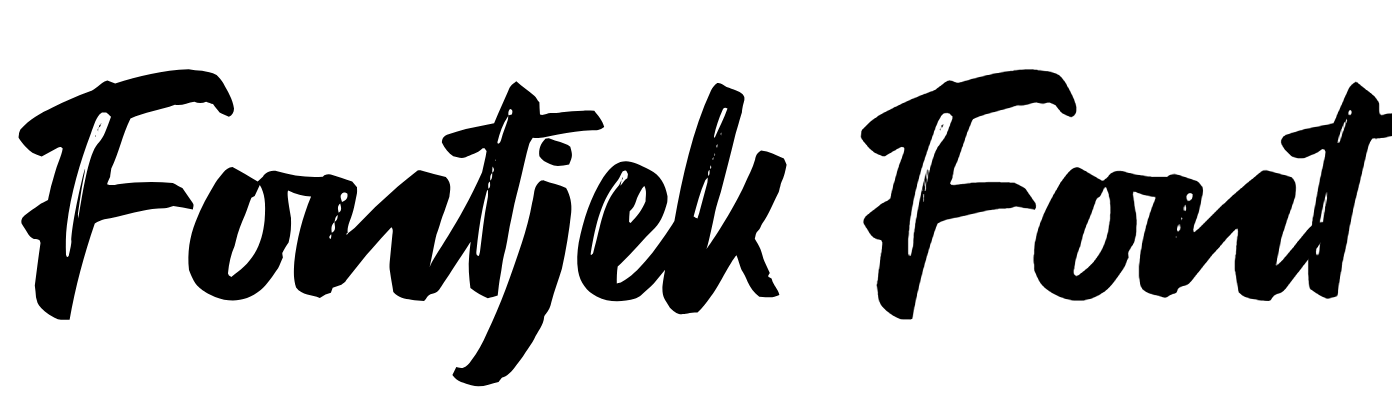
Fontjek
Fontjek is a script font created by Khurasan (2019). The letters have the smooth movement of real pen lettering, which is why even a single name looks special in it. You can download it for free and test it with your own words in the preview above.
- Extra characters: 11 copy-and-paste alternates (Private Use Area)
You get every letter from A to Z in both cases and all the numbers from 0 to 9, which means Fontjek can handle full sentences, dates and prices. Common punctuation such as &, !, ? and @ is included as well. It also has the accented letters you need for Spanish, French, Portuguese and Italian.
Designers usually reach for fonts like Fontjek when they're making wedding invitations, logos and signature-style headings. Script fonts read best in short bursts, so keep it to names, titles and one-line quotes. Skip all caps: script capitals are drawn to start a word, not to fill one.
Yes. Fontjek includes the accented letters needed for Spanish, French, Portuguese and Italian, so it works for more than just English.